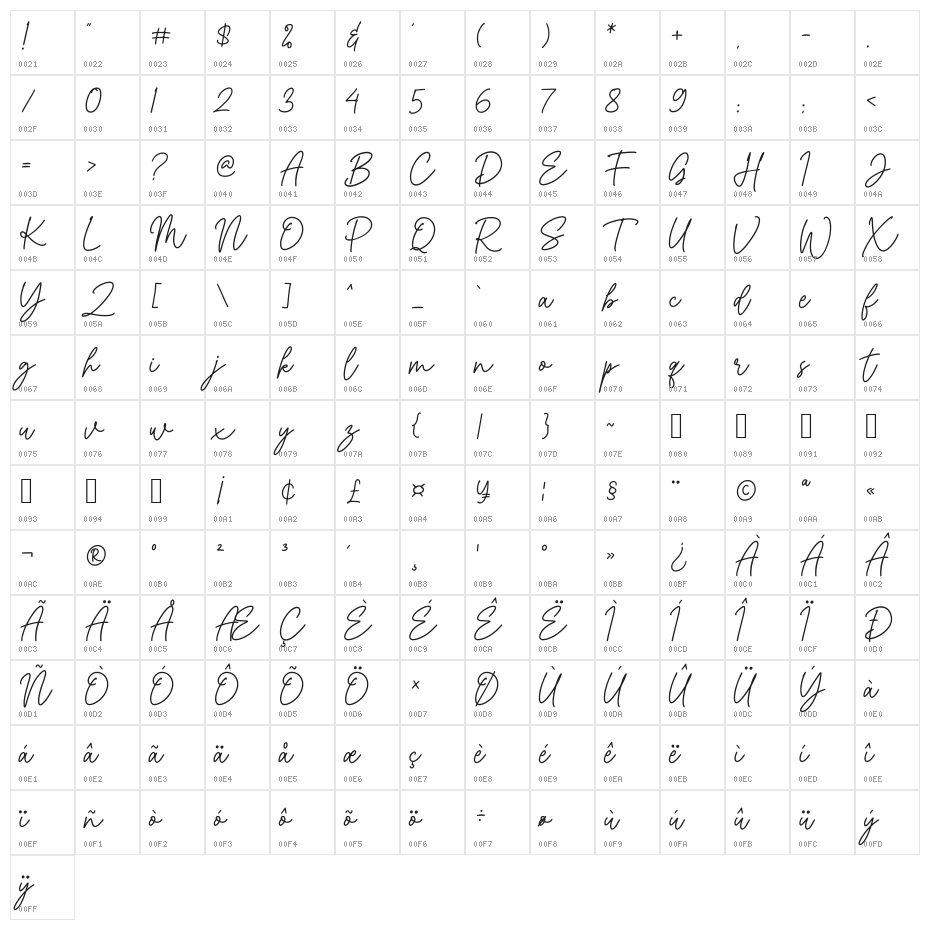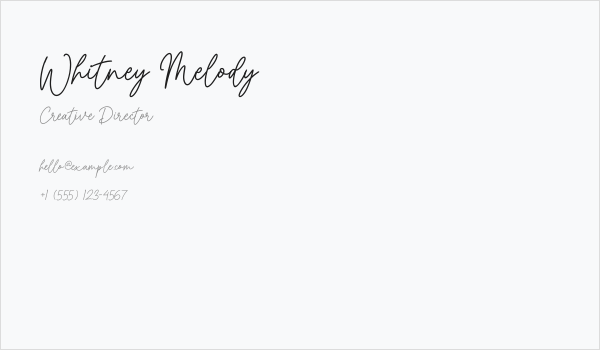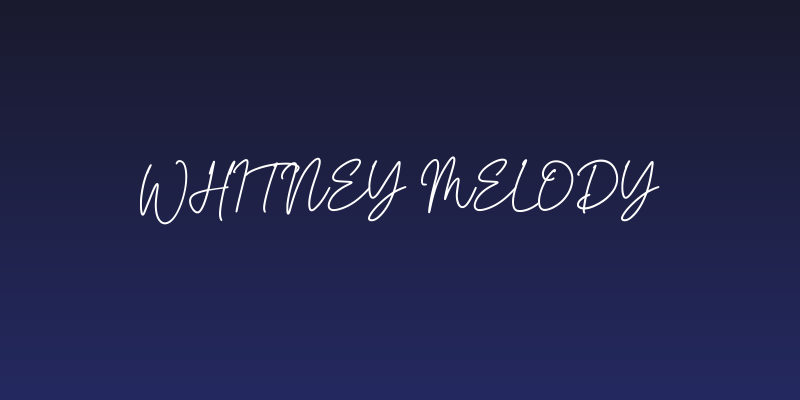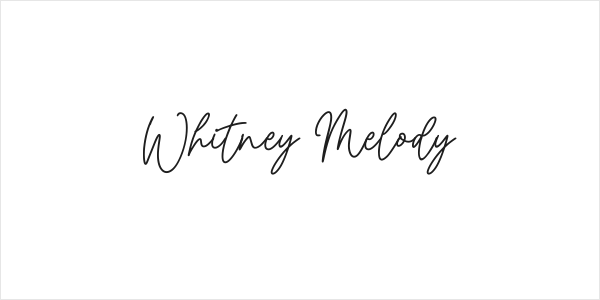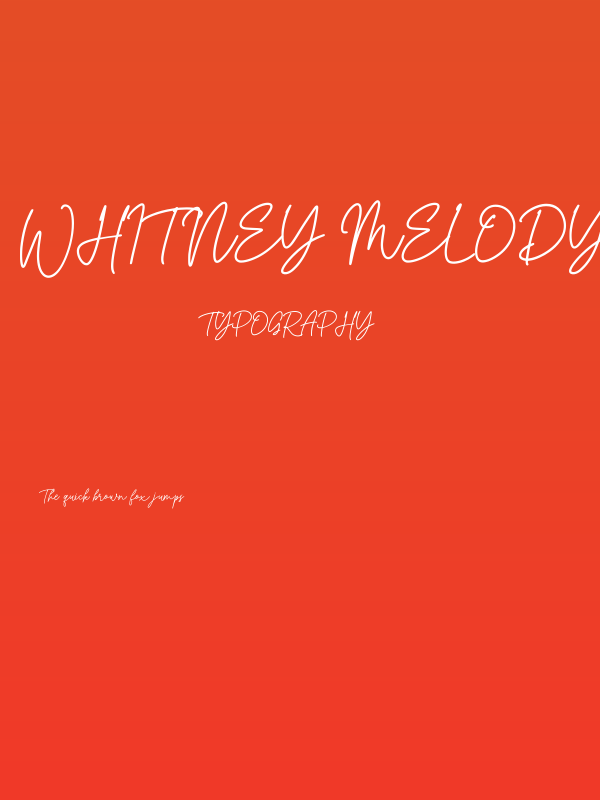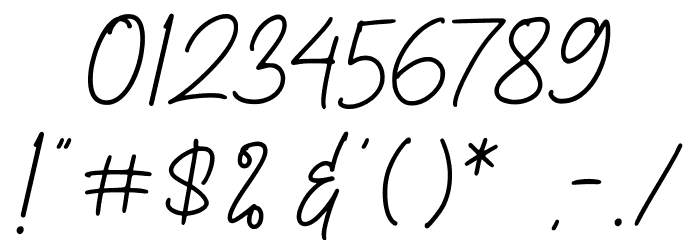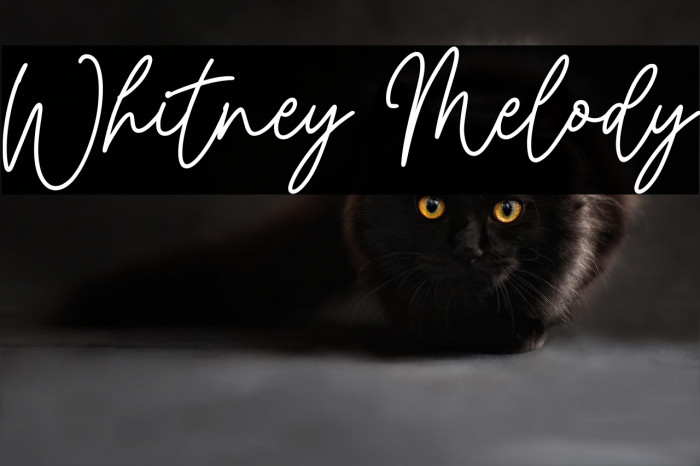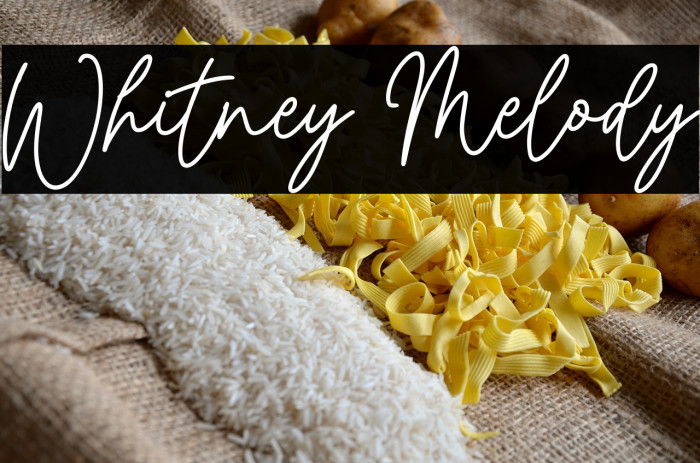
Whitney Melody Font
Whitney Melody Description
This font exudes a charming and elegant handwritten style, characterized by its fluid and continuous strokes that mimic natural handwriting. The uppercase letters are slightly more structured, maintaining a consistent height, while the lowercase letters flow with a graceful cursive flair. The numbers and special characters are crafted with the same attention to detail, ensuring a cohesive look throughout. The overall appearance is both sophisticated and approachable, making it suitable for a variety of creative projects. The font's delicate lines and smooth curves give it a refined yet casual feel, perfect for adding a personal touch to any design.
| Overall Style | Elegant, Casual |
| Proposed Projects | Ideal for wedding invitations, personal branding, greeting cards, and social media graphics. |